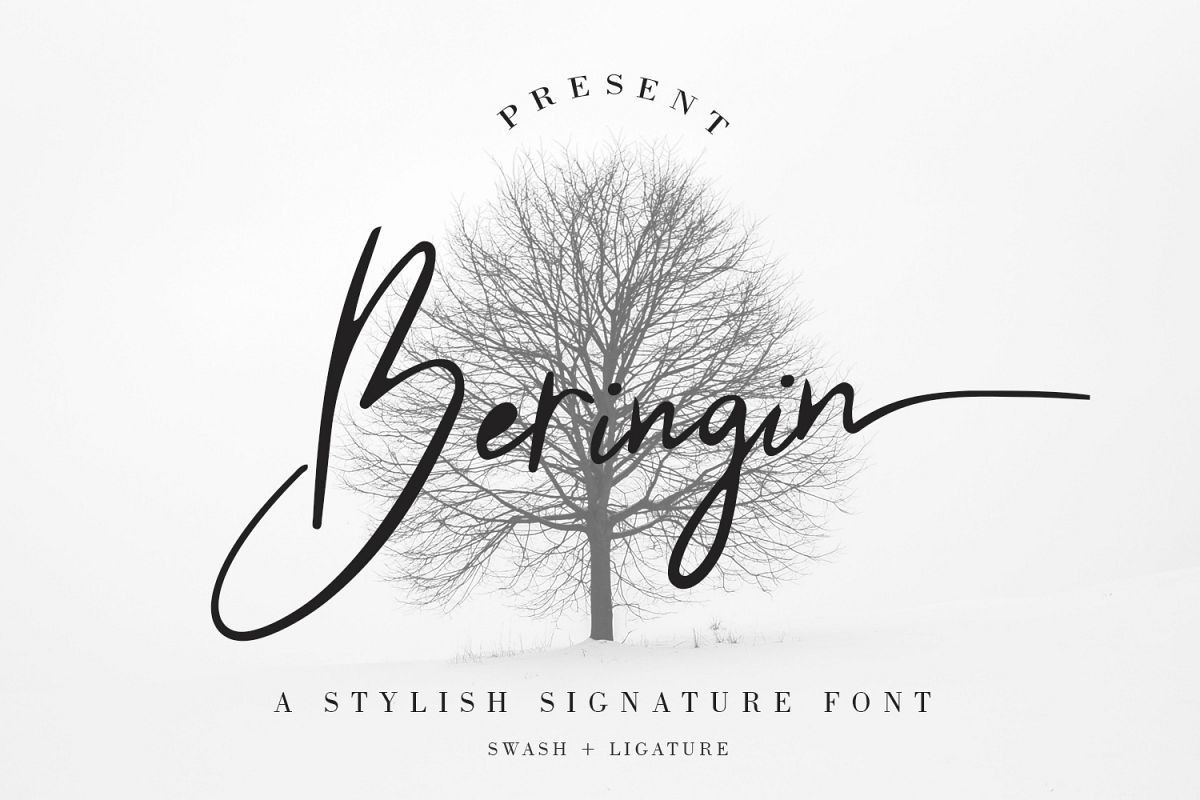
Beringin Stylish Signature Font
Beringin
Beringin is a signature font that is unique, has an elegant style and is wrapped with an original hand stroke so it will be very suitable for your design project
• Character Set A-Z
• Numerals & Punctuations (OpenType Standard)
• Accents (Multilingual characters)
• Swash